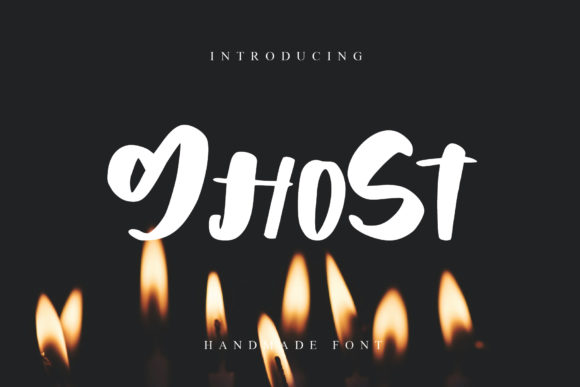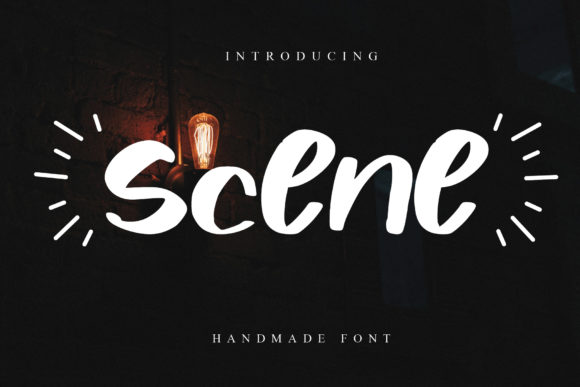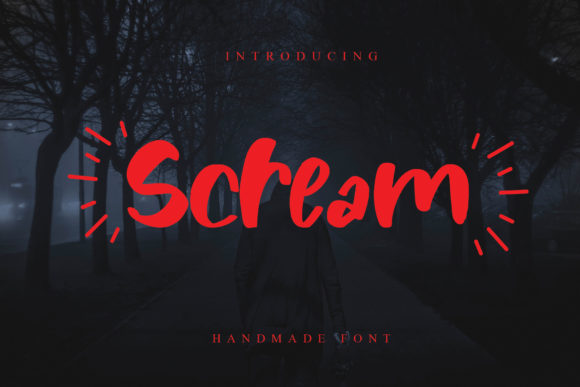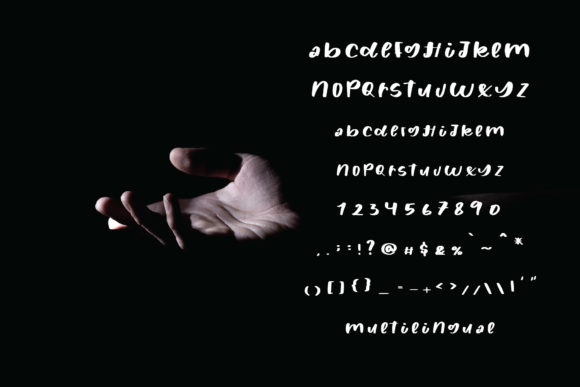
The Evil Eye Font: A Simple yet Powerful Design Tool
I’ll never forget the time I was working on a branding project for a new yoga studio. I had the logo concept nailed, but the font I was using just wasn’t doing it justice. The letters felt stiff and didn’t quite capture the free-spirited vibe of the studio. That’s when I stumbled upon the Evil Eye font. It was like a breath of fresh air – simple, flowing, and effortlessly cool. In this article, I’ll share my experience with the Evil Eye font, its features, and how to make the most of it in your designs.
- ✨ Simple and flowing design that’s perfect for display text
- ✅ Highly legible, even at smaller sizes
- 💫 Works well with a variety of design styles, from minimalist to bold
- 🎉 Supports OpenType features, glyphs, and stylistic alternates for added creativity
While the Evil Eye font is incredibly versatile, there are a few things to keep in mind:
- 🤔 Limited use for body text, as it’s primarily designed for display purposes
- ⚠️ Some characters may not work well at very small sizes (below 10pt)
A Practical Guide to Using Evil Eye Font
The Story Behind Evil Eye Font
Evil Eye was designed with the intention of creating a simple, yet powerful display font. The designer aimed to craft a typeface that would be both elegant and approachable, making it perfect for creative projects. While the exact story behind the font’s creation may be unknown, it’s clear that the Evil Eye font has become a valuable tool for designers looking to add a touch of sophistication to their work.
| Font Name | Evil Eye Font |
| Author | goodigital |
| What is the Evil Eye font best used for? | The Evil Eye font is ideal for display text, headlines, and titles. It’s perfect for creative projects, branding, and advertising. |
| Is the Evil Eye font suitable for body text? | No, the Evil Eye font is primarily designed for display purposes and may not be the best choice for body text. |
| Are there any OpenType features available in the Evil Eye font? | Yes, the Evil Eye font supports OpenType features, glyphs, and stylistic alternates, which can be accessed through compatible design software. |